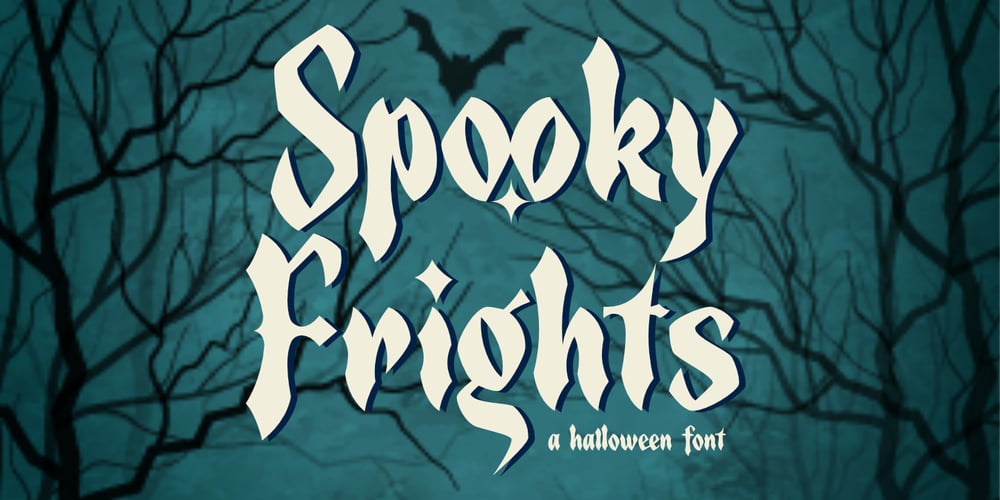
Spooky Frights Font Family was designed by Saiful Anwar and published by Sealoung. Spooky Frights contains 1 styles and family package options. Spooky Frights celebrates all things scary: It’s the ideal display typeface for any spooky Halloween-themed creative project. Add it to your most creative ideas and notice how it makes them come alive. This is an installable font that will work great with your Halloween party invitations, web graphics, and other halloween decor. This font is cuttable!what’s inside :Uppercase & LowercaseNumerals and Punctuations (OpenType Standard)Accents (Multilingual Characters)PUA encodedLigatures